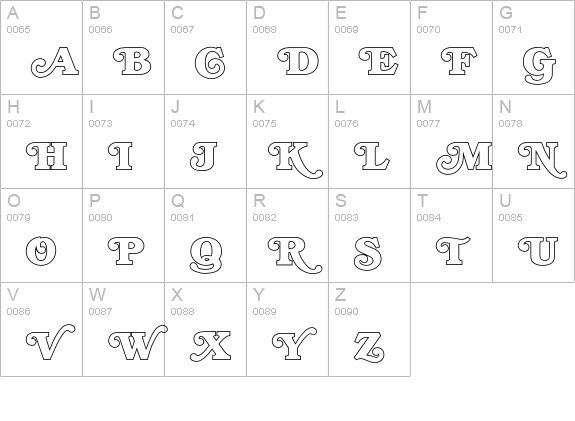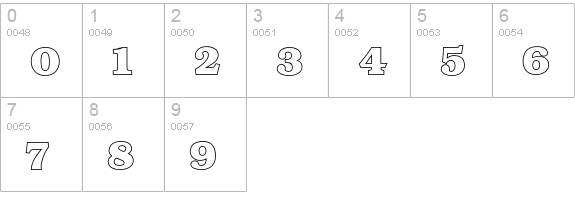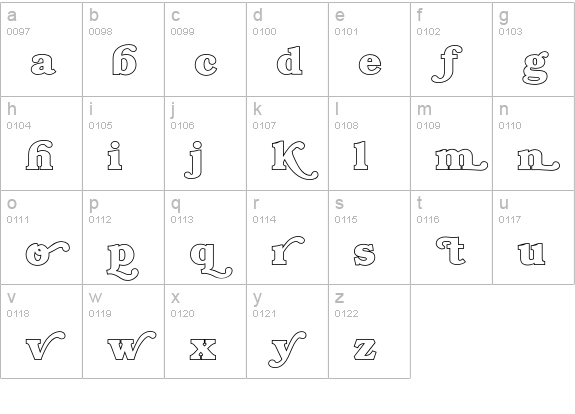
BookmanOutlineSwash font is a charming and elegant typeface that adds a touch of sophistication to any design project. With its intricate swashes and detailed outlines, this font is perfect for creating eye-catching headlines, invitations, and other graphic designs. The classic yet stylish appearance of BookmanOutlineSwash font makes it versatile for a wide range of applications, from wedding invitations to branding materials. The best part is that BookmanOutlineSwash font is available for free download at FontsMarket.com. You can easily add this beautiful font to your collection and use it in both personal and commercial projects without any restrictions. Don't miss out on the opportunity to enhance your designs with the timeless appeal of BookmanOutlineSwash font - download it today and let your creativity shine!